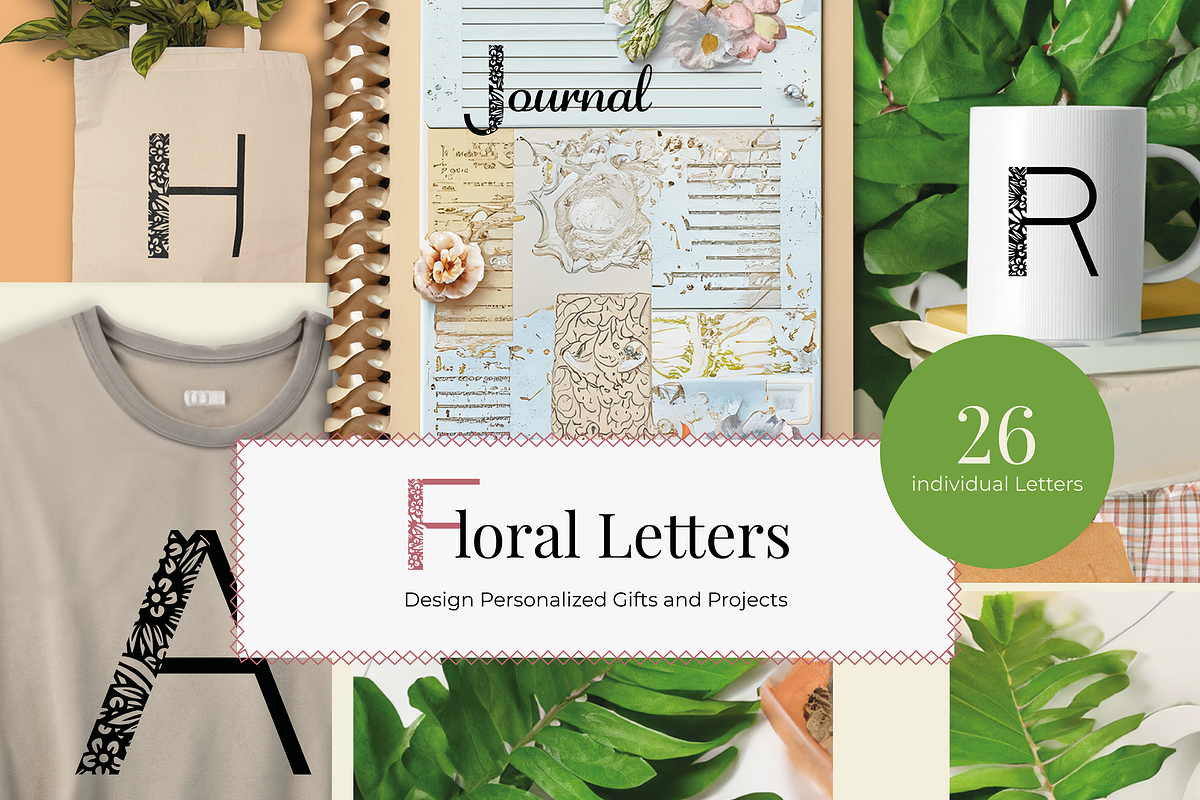
Botanical Bloom Elegant Floral Font
Introducing Botanical Bloom – an elegant, modern sans-serif display font uniquely adorned with a delicate, hand-drawn floral pattern. Designed to capture the effortless beauty of nature, this decorative typeface infuses your branding projects with a fresh, organic, and vibrant aesthetic.
Whether you are designing romantic wedding stationery, seasonal spring and summer collections, or eye-catching lifestyle branding, Botanical Bloom adds a touch of natural charm and high-end elegance to your text.
Crisp vector-based floral pattern embedded directly into the font glyphs
✨ Perfect For:
Wedding Stationery: Elegant wedding invitations, RSVP cards, and romantic greeting cards.
Branding & Packaging: Cosmetic labels, organic skincare packaging, boutique shop logos, and feminine branding.
Marketing Materials: Spring/Summer collection flyers, outdoor garden party announcements, and local event posters.
Digital Content: Aesthetic social media graphics, Instagram story highlights, blog headers, and digital journaling.
💡 Design Pro-Tip:
This font works best at larger display sizes (headings, titles, logos) to ensure the intricate botanical details print beautifully and stand out sharply.